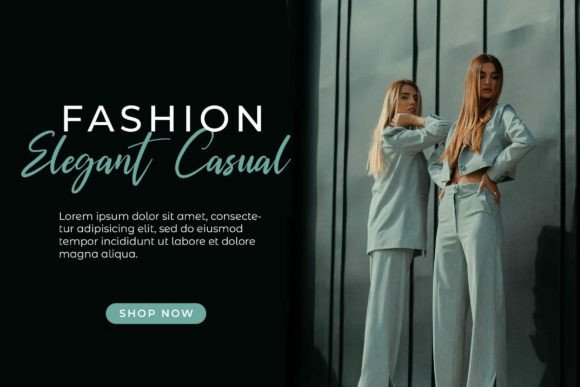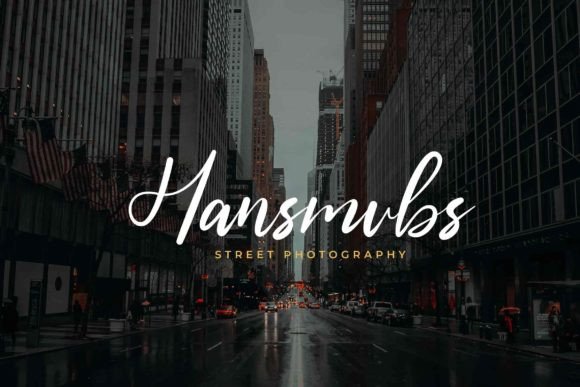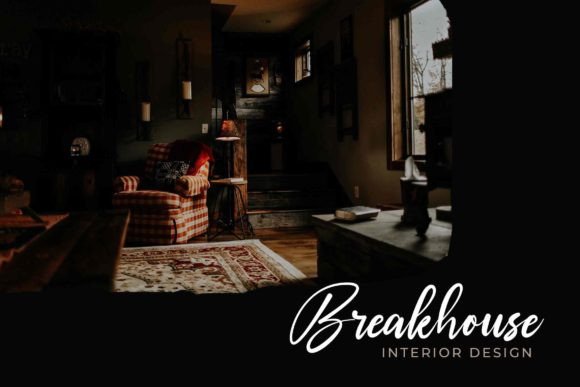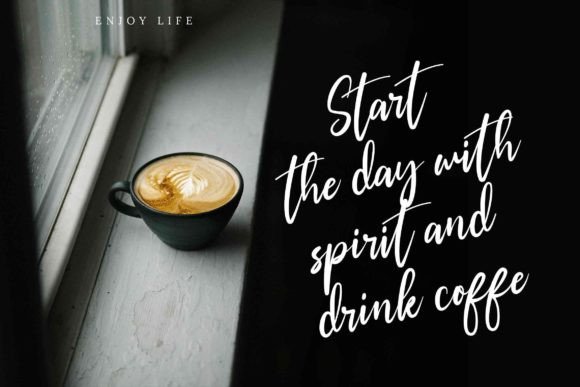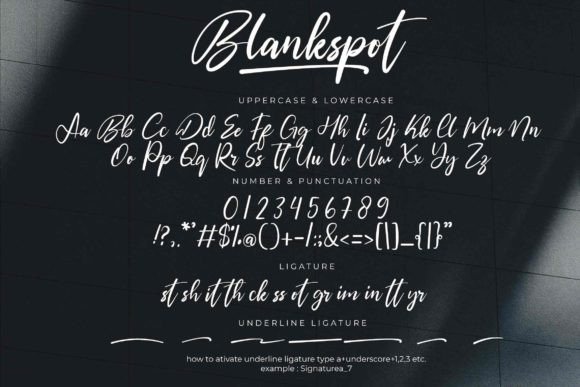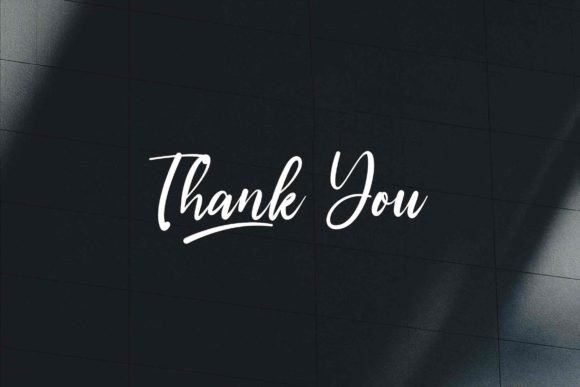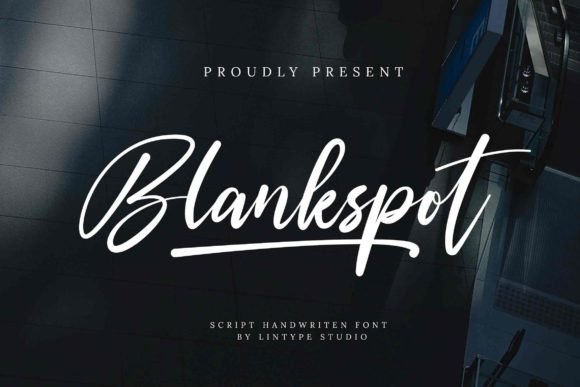
Introducing Blankspot Font: Elevate Your Designs with Elegance
In the world of digital design, typography plays a crucial role in conveying messages, evoking emotions, and creating lasting impressions. For designers, crafters, and anyone looking to add a touch of elegance to their projects, the Blankspot Font is a game-changer. This beautiful, aesthetic handwritten script font is designed to enhance a wide range of designs, from wedding invitations and branding materials to social media posts, business cards, and inspirational quotes.
The Beauty of Blankspot Font
Blankspot Font stands out with its unique, handwritten script that exudes warmth, sophistication, and charm. Its elegant strokes and carefully crafted letters make it perfect for projects that demand a personal touch. Whether you’re designing for digital platforms or print, Blankspot ensures your text looks beautiful, cohesive, and visually appealing.
One of the key advantages of Blankspot Font is its versatility. It’s incredibly adaptable, making it suitable for a variety of applications. Here are some ways you can use Blankspot to elevate your designs:
- Wedding Invitations: Add a touch of romance and elegance to your wedding invitations, save-the-date cards, and other wedding-related designs.
- Branding Materials: Use Blankspot to create a distinctive brand voice and aesthetic for your business, making your brand memorable and unique.
- Social Media Posts: Enhance your social media content with stylish text overlays, quotes, and captions that grab attention and engage your audience.
- Business Cards: Stand out in a stack of business cards with a beautifully designed card that showcases your professionalism and style.
- Quotes and Inspirational Content: Make your motivational quotes, sayings, and affirmations more impactful with a font that resonates with your audience.
Why Choose Blankspot Font?
With so many fonts available, why should Blankspot be your go-to choice? Here are a few compelling reasons:
- Unique Aesthetic: Blankspot offers a fresh, unique look that sets it apart from more traditional fonts.
- High Readability: Despite its elegant nature, Blankspot maintains high readability, making it suitable for both headings and body text.
- Support for Multiple Languages: Blankspot supports multiple languages, offering flexibility for global users.
Tips for Using Blankspot Font Effectively
To get the most out of Blankspot Font, consider the following tips:
- Pair with Complementary Fonts: For optimal results, pair Blankspot with clean, sans-serif fonts to create contrast and visual interest.
- Adjust Letter Spacing: Experiment with letter spacing to find the perfect balance for your design, especially for headings and titles.
- Play with Colors: Don’t be afraid to try out different colors and gradients to match your brand’s palette or the mood of your design.
Blankspot Font is more than just a typeface; it’s a design element that can transform your projects with its elegance and charm. Whether you’re a professional designer, a small business owner, or a passionate crafter, Blankspot offers a simple yet effective way to enhance your designs and connect with your audience on a deeper level. With its versatility, aesthetic appeal, and ease of use, Blankspot Font is poised to become your new favorite go-to for all your design needs.